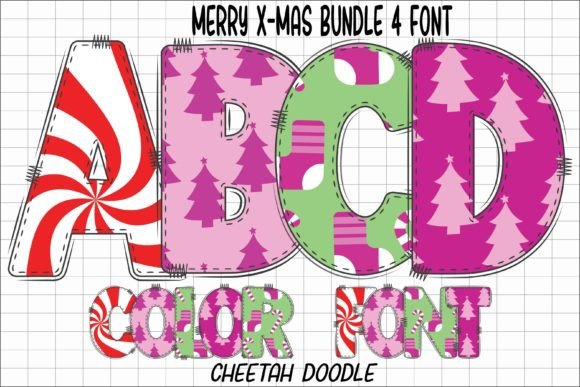
Immerse yourself in the Christmas spirit with Merry X-mas Font, an enchanting display font family brimming with holiday charm. Created by the talented CHEETAH DOODLE, this decorative font captivates with its playful spirit, making it the perfect choice for crafting personalized Christmas cards, vibrant holiday t-shirts, or unique ornaments that radiate the warmth of the festive season.
Unleash your creativity and let Merry X-mas Font transform your designs into captivating masterpieces. Its eye-catching color palettes add an extra layer of magic to your projects, turning them into vibrant expressions of the Christmas spirit. Whether you're a seasoned designer or a creative enthusiast, this font family offers an accessible and enjoyable experience, allowing you to effortlessly elevate your projects with a touch of cheerful elegance.
With Merry X-mas Font, the possibilities are as endless as your imagination. Embark on a creative journey and let the font's charm infuse your designs with a festive flair. Embrace the merriest season of the year with this font family that's guaranteed to add a touch of Christmas cheer to all your creations.